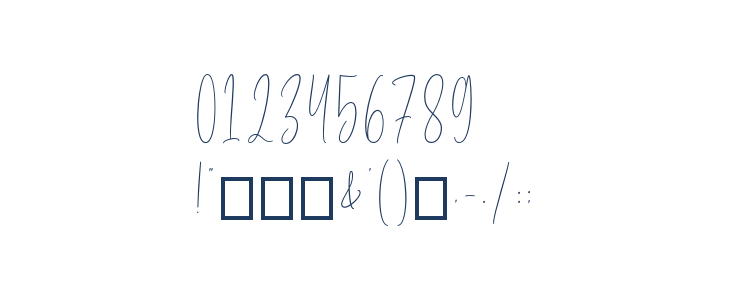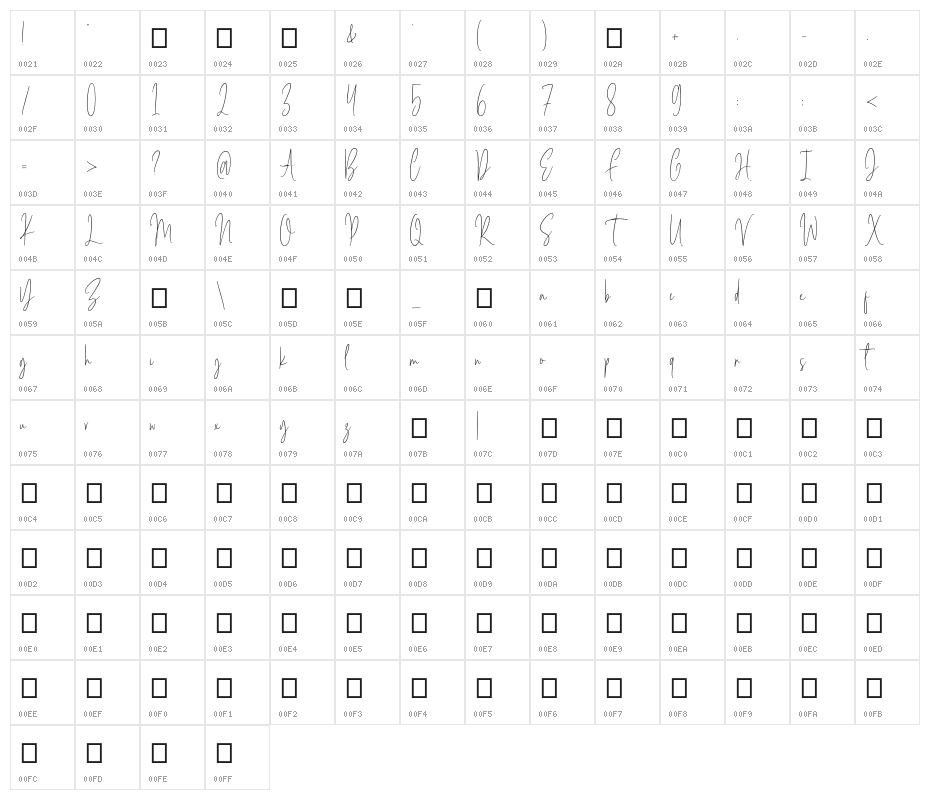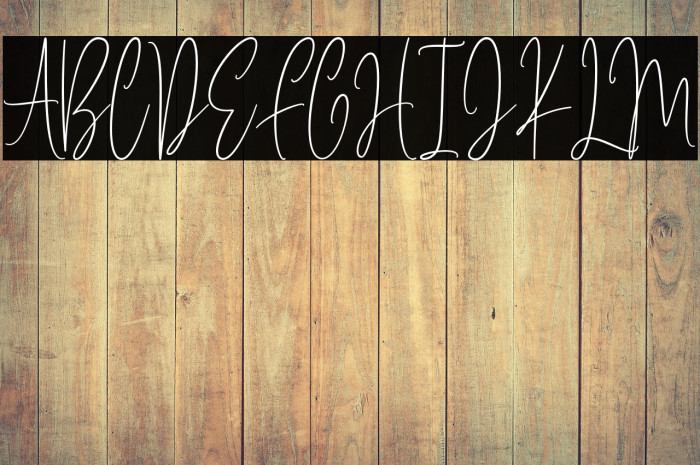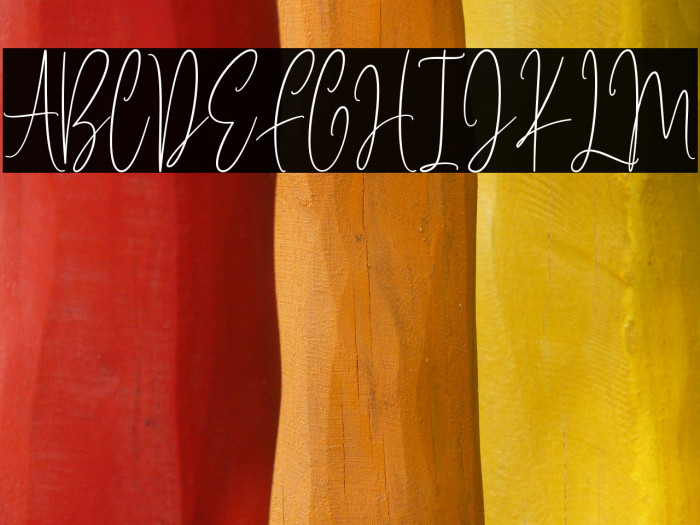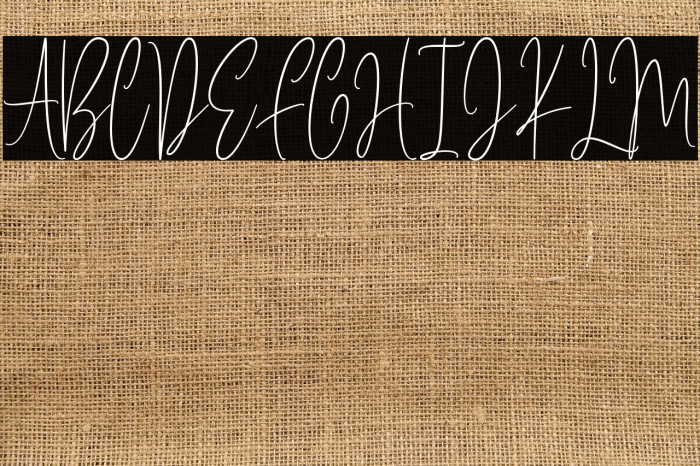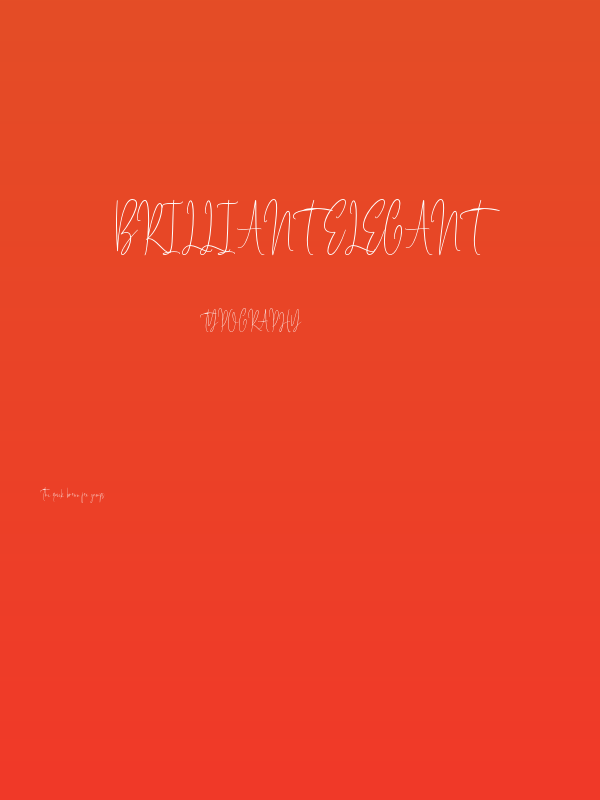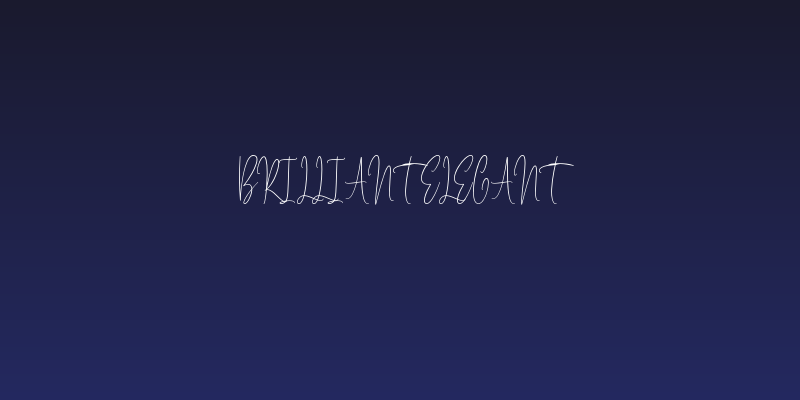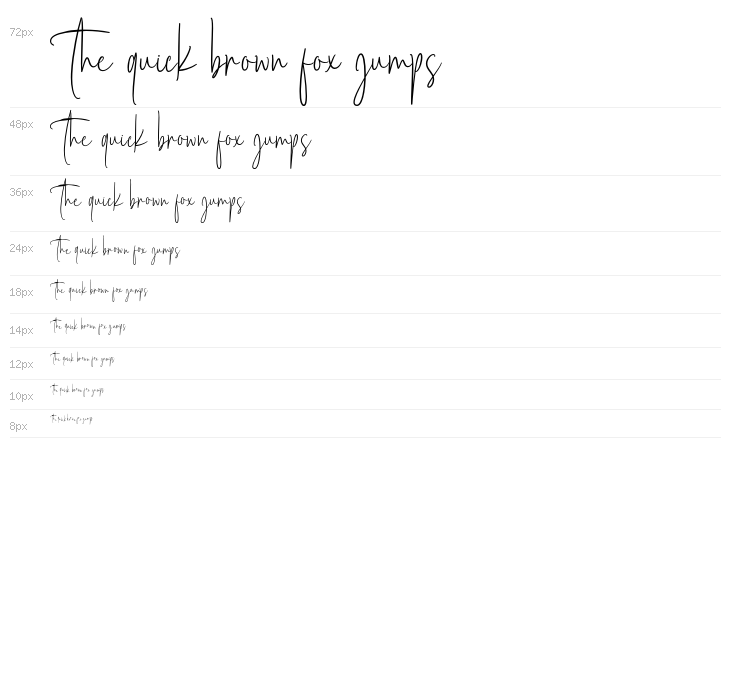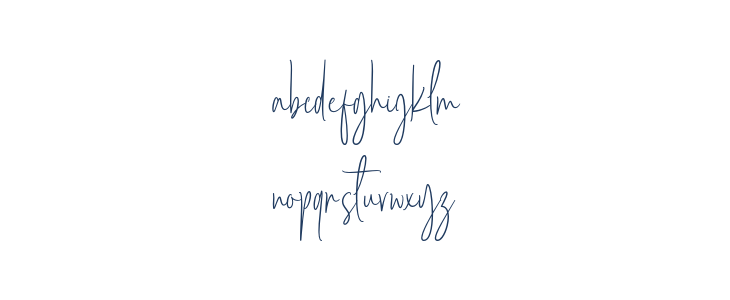
Brilliant Elegant Font
Brilliant Elegant Description
This font exudes a sense of elegance and sophistication with its flowing, cursive style. The letters are elongated and slender, giving it a graceful appearance. The uppercase characters are particularly ornate, featuring intricate loops and swirls that add a touch of flair. The lowercase letters maintain a consistent style, with smooth curves and a slightly informal feel. Numbers are designed to match the overall aesthetic, with a similar slender and tall structure. Special characters are included, maintaining the same elegant style. This font is perfect for projects that require a touch of class and refinement.